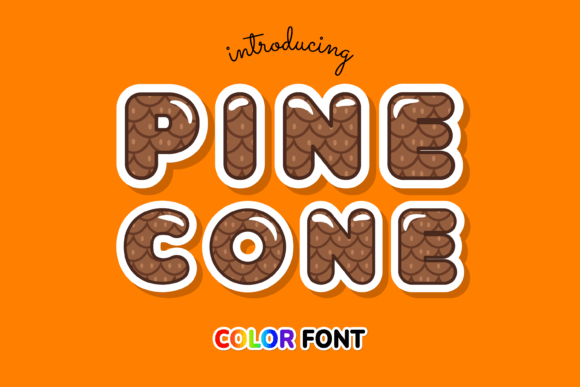
Behold Pinecone Font, a Winter Wonderland of Colors!
Immerse yourself in the enchanting world of Pinecone Font, a remarkable color font collection that will transport you to a magical winter wonderland. Designed with meticulous attention to detail, this font family is a feast for the eyes, boasting a vibrant palette of colors that will ignite your creativity and bring your designs to life.
Explore the boundless possibilities of Pinecone Font and discover a new dimension of expression. Whether you're a seasoned designer seeking to elevate your projects or a creative enthusiast eager to unleash your imagination, this font family will captivate your senses and leave you spellbound.
Step into the heart of winter with Pinecone Font and let your imagination run wild. Its intricate details and captivating color combinations will transform your designs into works of art. From personalized invitations and greeting cards to eye-catching social media posts and website banners, Pinecone Font will add a touch of magic to every creation.